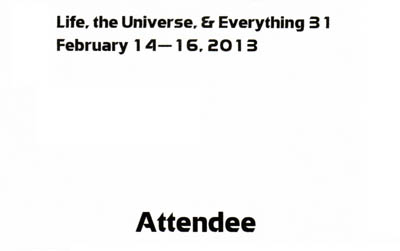
This is my name tag for a science fiction convention. Because I didn't pre-pay, I had to hand write my name. I'd like to figure out the font and be able to print a new tag with my name like everyone else's. If you have seen this one, please let me know :)
CastCraft Software/OPTIIzara.otf
See here.
Mike, thank you for bringing up that thread.
The original of this design now belongs to Agfa (which means it doesn't belong to CastCraft). It's hopeful that Paratype -being an honorable operation- actually acquired the formal rights to make Mania*. But frankly even if they didn't, personally I'd rather see people support an honorable foundry than merely save $25.
Firstly, Castcraft is now defunct - and, before they made OptiIzara and OptiZara digitally, they were part of the cycle of photo type makers (including Compugraphic) ripping each other off with clones.
Paratype sells all sorts of Western fonts they have no legitimate rights to. They say, "Created by (some Russian font maker)" and then (to their credit) say, "similar to (font x by designer z). I'm sure it's wonderful to their Russian market that the font is available digitally with Cyrillic glyphs- but the original font was Western and, in some cases, still ethically (forget about legally ...) wrong to clone. An Othmar Motter font, Motter Tektura comes to mind. There are plenty of other examples, but, unfortunately, I haven't the time to lay them out now.
Paratype has no rights to their "version" of this. Nevertheless, you urge folks to give them $25 (It's commercial. It must be good!) rather than risk an offense against another defunct foundry (Compugraphic > Agfa).
We can certainly talk about Paratype - I'm sure there are many factors I have no clue about. Just FYI though, many years ago I suffered a bit of embarrassment (on Typo-L) when I expressed that some of their fonts are illegitimately derived from ITC designs, only to learn that they were in fact authorized derivations.
Are you sure Motter Tektura is illegitimate? Or is it simply a logical suspicion (maybe like the ones I had back on Typo-L)? And are of you a mind that if somebody does something wrong any other deeds that are actually good don't count? Lastly, Agfa might no longer market fonts (and only at this moment...) but that doesn't mean they no longer own them; they could still make money from selling those rights. Don't get me wrong, I don't think either Compugraphic or Agfa have always behaved like saints (for one thing the latter manufactured chemicals used by the Nazis). But what good has CastCraft done? And why is a shopper saving some money the most important factor?
After seeing a couple like-minded posters get hit with the spam tag, I stupidly figured that you, Hrant, had (indirectly) gotten us muzzled. Yes, I know you claim no desire for such censorship.
Considering the recent spam problems on the forums, a light bulb should have gone off in my head - but it didn't. Instead, I jumped to a bozo conclusion. I am truly sorry for the personal attack related to this and I'm going now to edit that post for civility.
Thank you for the apology. FWIW, when I mess up that like I don't go back and edit it. I think that makes me more human (which is something I for one need to do :-).
And indeed, in ~15 years I have only requested that somebody be disciplined on one occasion (and it wasn't on Typophile). To be candid though I'm now reconsidering that philosophy (although it has nothing to do with you).
The above message got snagged by the spam filter. I didn't know it went out at all - and with x4 variations. ??
I think we do agree on some key issues, and yes, the main thing we seem to disagree on is how much effort we should make in keeping/making Typophile friendly to the makers of type. The fact that I'm one of the extremely few type designers who now sets foot in the ID section (while in the past type experts like Stephen Coles and Yves Peters were regular IDers) I feel speaks volumes about how the ID section has been treating us.